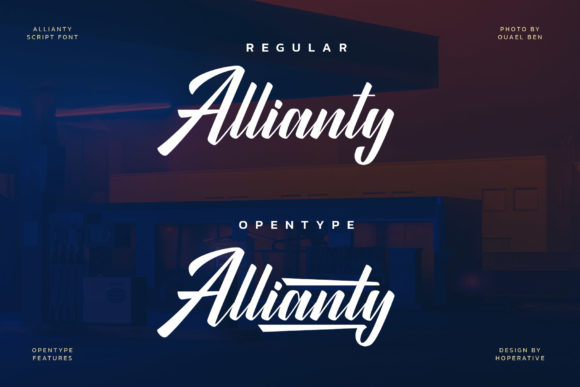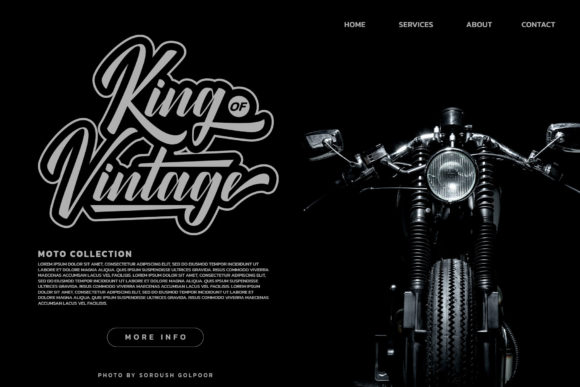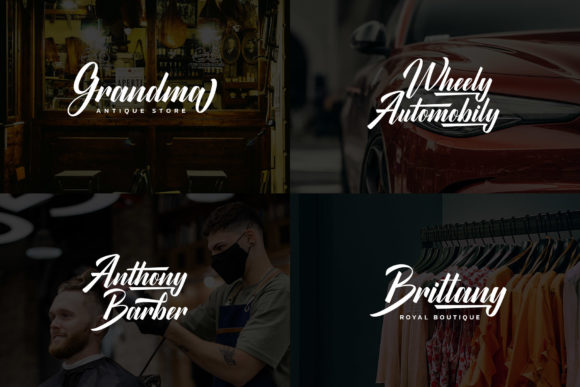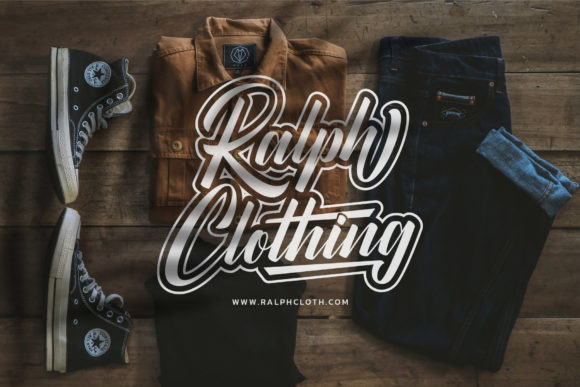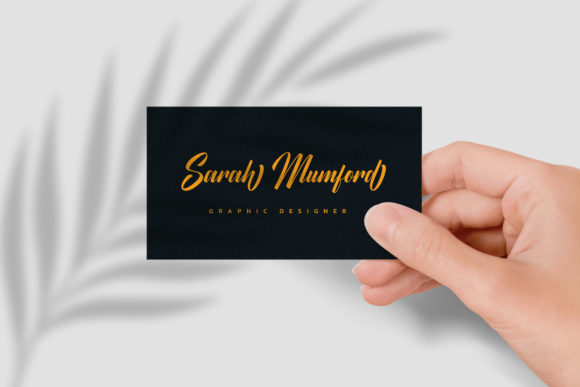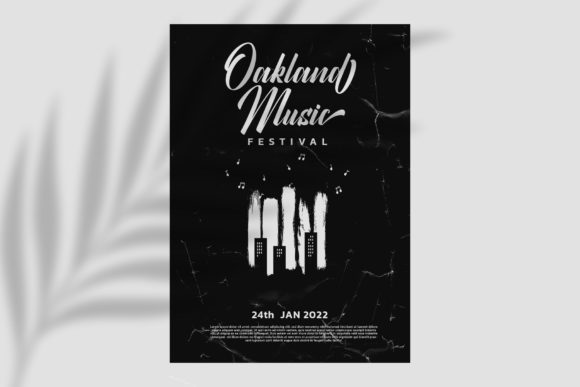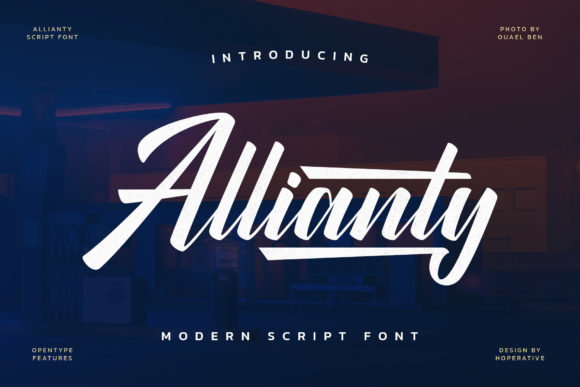
Introducing Allianty Font: Elevate Your Designs with a Retro Twist
Are you on the hunt for a font that adds a touch of elegance and sophistication to your designs? Look no further than Allianty Font, a stunning retro-styled script font that’s sure to make your projects stand out. Crafted with meticulous attention to detail, Allianty is the perfect addition to any designer’s arsenal.
Aesthetic Appeal of Allianty Font
Allianty Font boasts a gorgeous, retro aesthetic that’s reminiscent of classic typography. Its flowing lines, intricate swashes, and beautifully crafted glyphs make it an ideal choice for designers looking to add a touch of vintage charm to their work. Whether you’re designing a logo, creating a brand identity, or crafting a stylish invitation, Allianty Font is sure to impress.
One of the standout features of Allianty Font is its PUA (Private Use Area) encoding. This means that you can access all of the font’s glyphs and swashes with ease, giving you unparalleled creative control over your designs. With PUA encoding, you can effortlessly navigate the font’s extensive character set, ensuring that your design process is smooth and efficient.
Key Features of Allianty Font
- Retro-styled script font: Add a touch of vintage charm to your designs with Allianty’s elegant, flowing lines.
- PUA encoded: Access all glyphs and swashes with ease, giving you complete creative control.
- Extensive character set: Includes a wide range of characters, glyphs, and swashes to enhance your designs.
Allianty Font is an excellent choice for designers and crafters looking to elevate their projects with a stylish, retro twist. Whether you’re working on:
- Logos and branding: Create a lasting impression with Allianty’s elegant, sophisticated lines.
- Invitations and stationery: Add a touch of vintage charm to your designs, making them truly special.
- Packaging and labels: Stand out on store shelves with Allianty’s eye-catching, retro aesthetic.
- Digital projects: Bring a touch of elegance to your website, social media, or advertising designs.
Why Choose Allianty Font?
With so many fonts available, why choose Allianty? Here are just a few reasons why this stunning script font stands out:
- Unique and distinctive: Allianty’s retro aesthetic ensures your designs will stand out from the crowd.
- High-quality design: Crafted with attention to detail, ensuring a professional finish.
- Versatile: Suitable for a wide range of design projects, from logos to digital media.
In conclusion, Allianty Font is a gorgeous, retro-styled script font that’s sure to elevate your designs to the next level. With its PUA encoding, extensive character set, and elegant aesthetic, it’s the perfect choice for designers and crafters looking to add a touch of sophistication and style to their projects. So why wait? Download Allianty Font today and discover a world of creative possibilities!